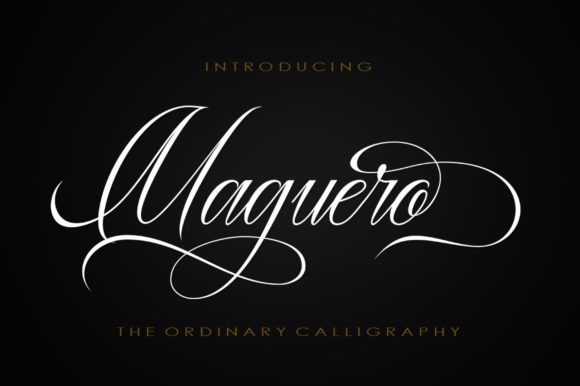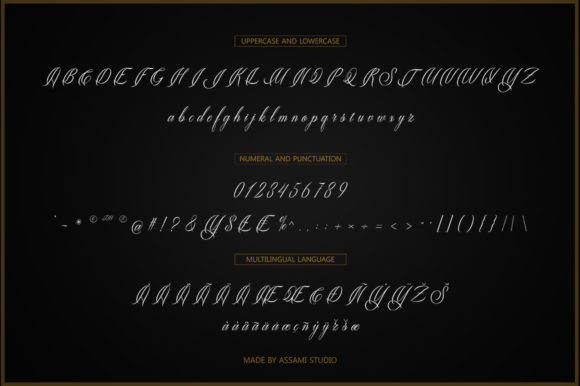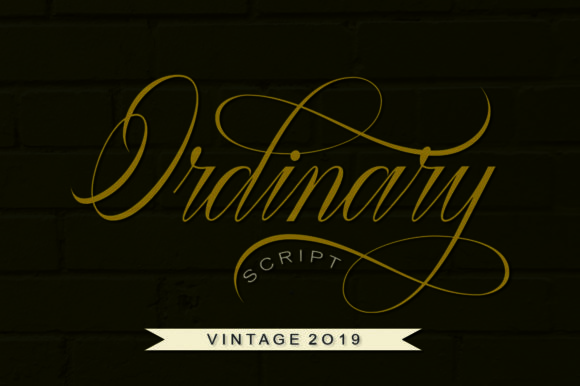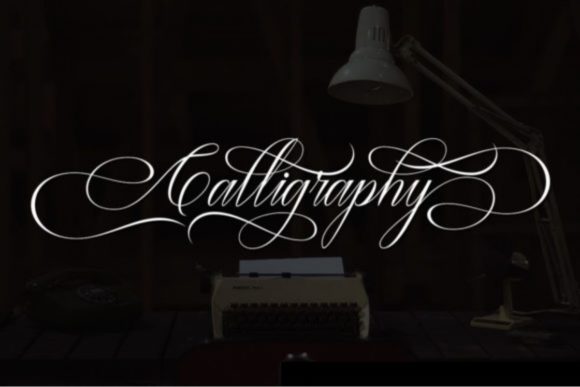
Maguero Script Font: Elegant Calligraphy for Wedding & Logo Design
About the Maguero Script Font
Introducing the Maguero Script Font, a beautifully crafted typeface designed to elevate your creative projects. Maguero is an incredibly modern and stunning handwritten font with beautiful swashes. Fall in love with this magnificent script!
Maguero’s strong, elegant swashes make it ideal for headlines, logos, and short text-based branding elements where its stylish personality shines. It works exceptionally well on invitations, packaging for luxury goods, and short, impactful posters. However, its decorative nature makes it unsuitable for body text or UI elements requiring high readability. Avoid using it for lengthy paragraphs or small sizes.
Pairing Maguero effectively depends on the desired balance. For a modern, sophisticated feel, consider pairing it with a clean sans-serif like Montserrat or a geometric sans-serif such as Futura. To create a warmer, more inviting feel, a classic serif like Garamond or a slightly more casual serif like Playfair Display would work well.
Maguero projects a bold, sophisticated, and slightly playful personality. It’s best suited for brands aiming for a high-end, stylish image, but its swashes prevent it from being overly serious. The font’s modern feel works particularly well with contemporary designs.
Maguero Script Font Usage Examples
Maguero Script Font Example